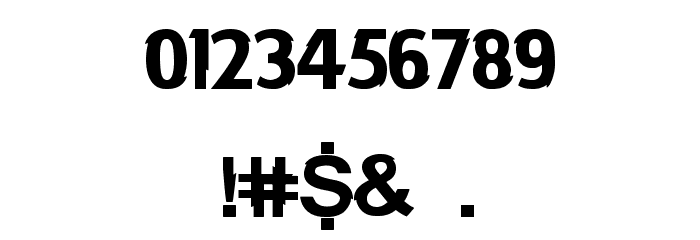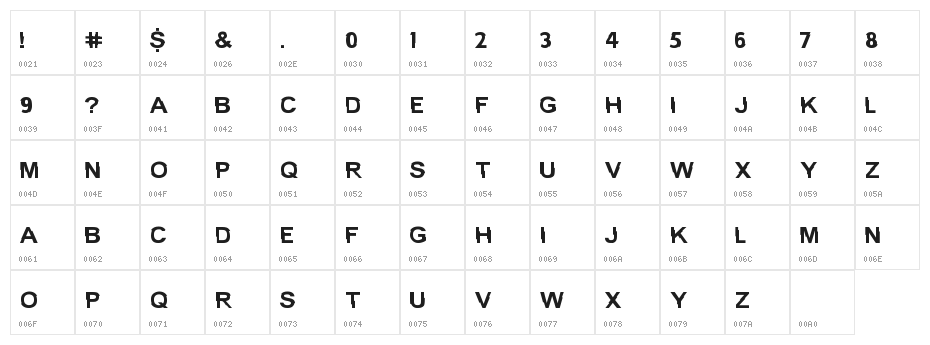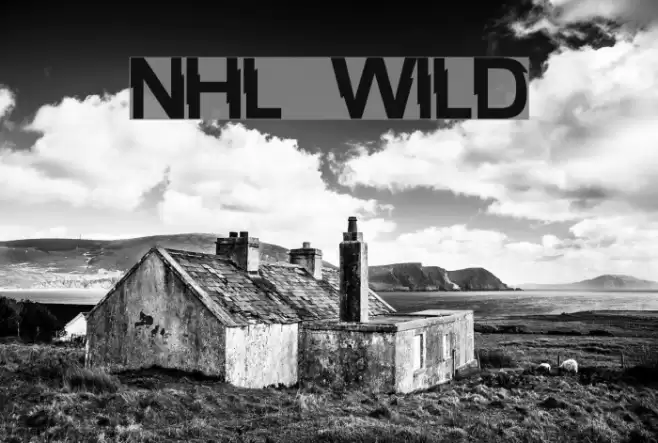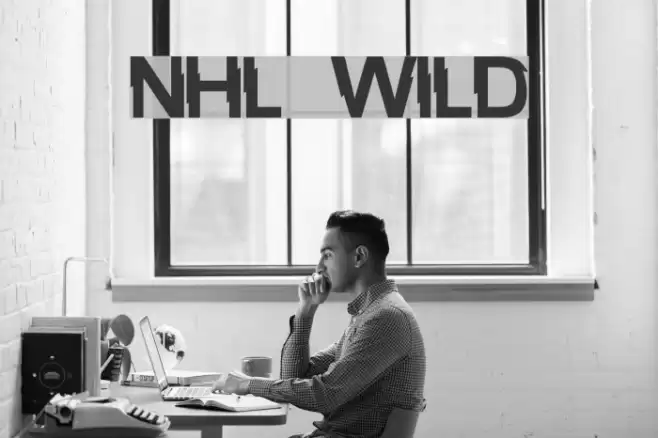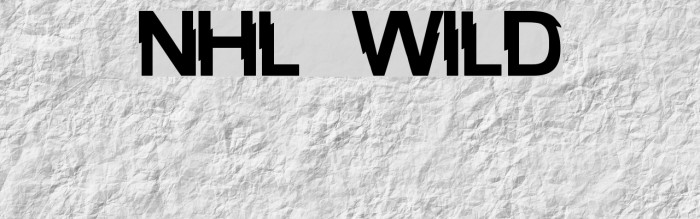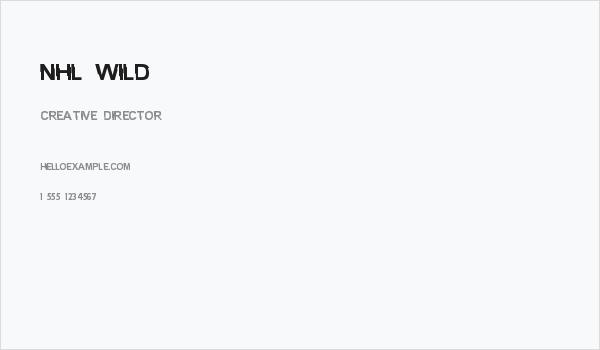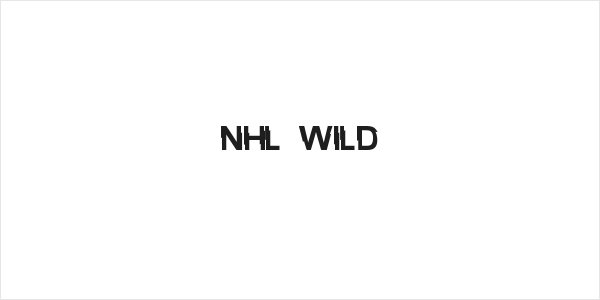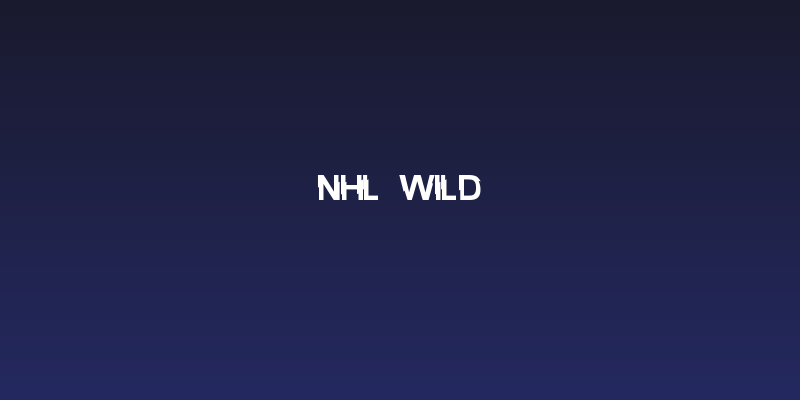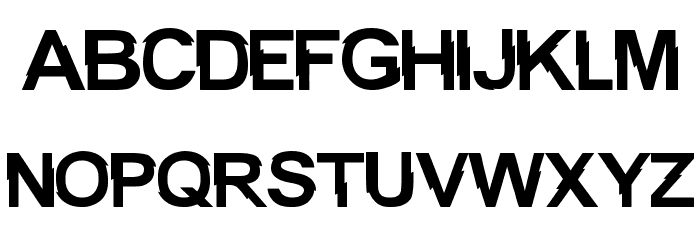
NHL Wild Font
NHL Wild Description
This font features bold, geometric letterforms with a strong, impactful presence. The uppercase letters are uniform in height, with sharp angles and clean lines that convey a sense of modernity and strength. The numerals are equally bold, maintaining the geometric style with consistent stroke widths. Special characters are designed to match the overall aesthetic, ensuring a cohesive look across all elements. The font's design is ideal for creating attention-grabbing headlines or logos that require a bold statement.
| Proposed Projects | Ideal for sports branding, dynamic posters, and bold headlines. |